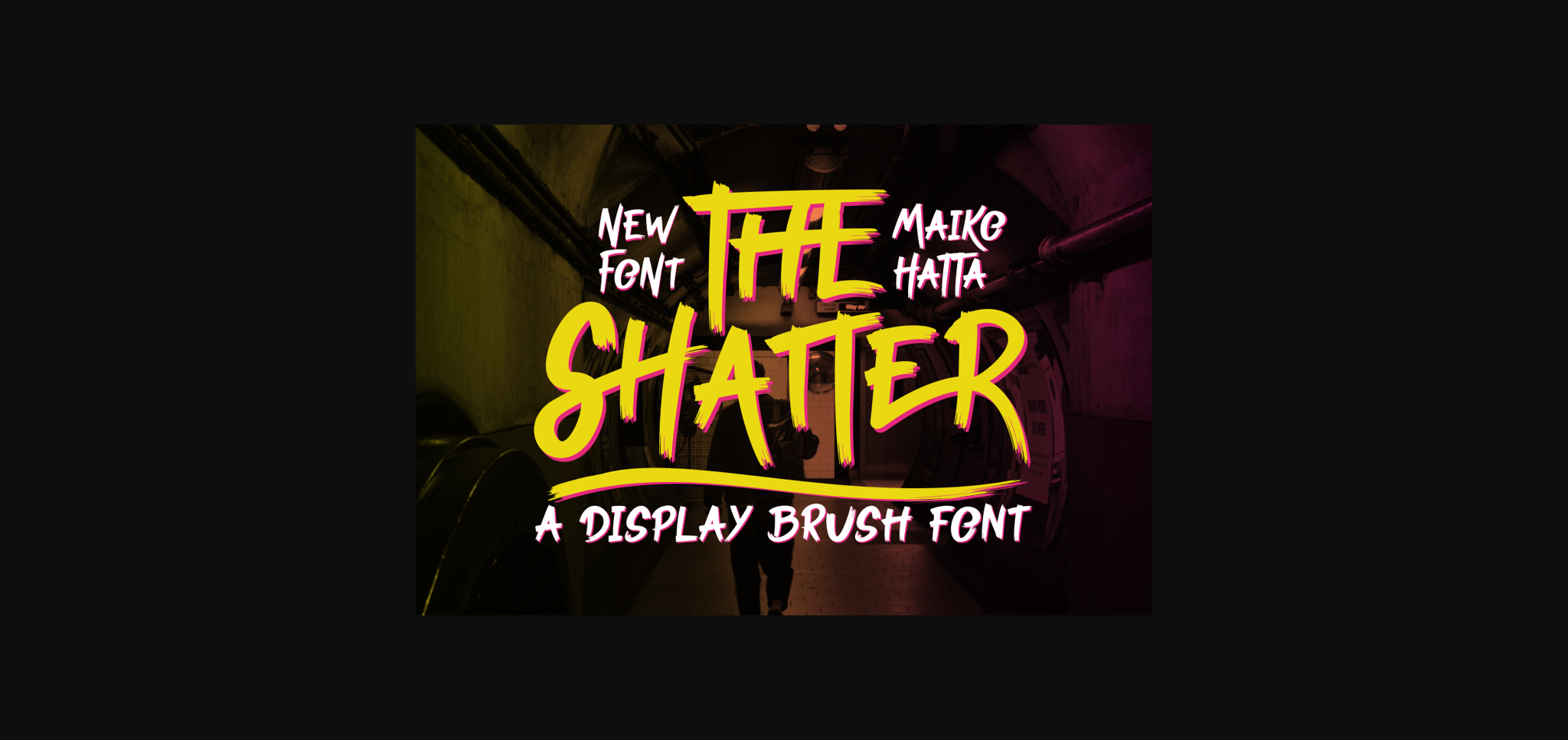
About The Shatter Font
Introducing our new product **Brush Font** – Modern Brush Typeface
This font features a combination of boldness and readability, merging the expressive brush handwriting style with contemporary design elements. It creates a fresh, dynamic look that aligns seamlessly with modern design aesthetics and is frequently employed in logo design, marketing materials, signage, and various projects requiring a contemporary and expressive touch. Its design excellence makes it a popular choice for conveying messages with a dynamic and engaging style.